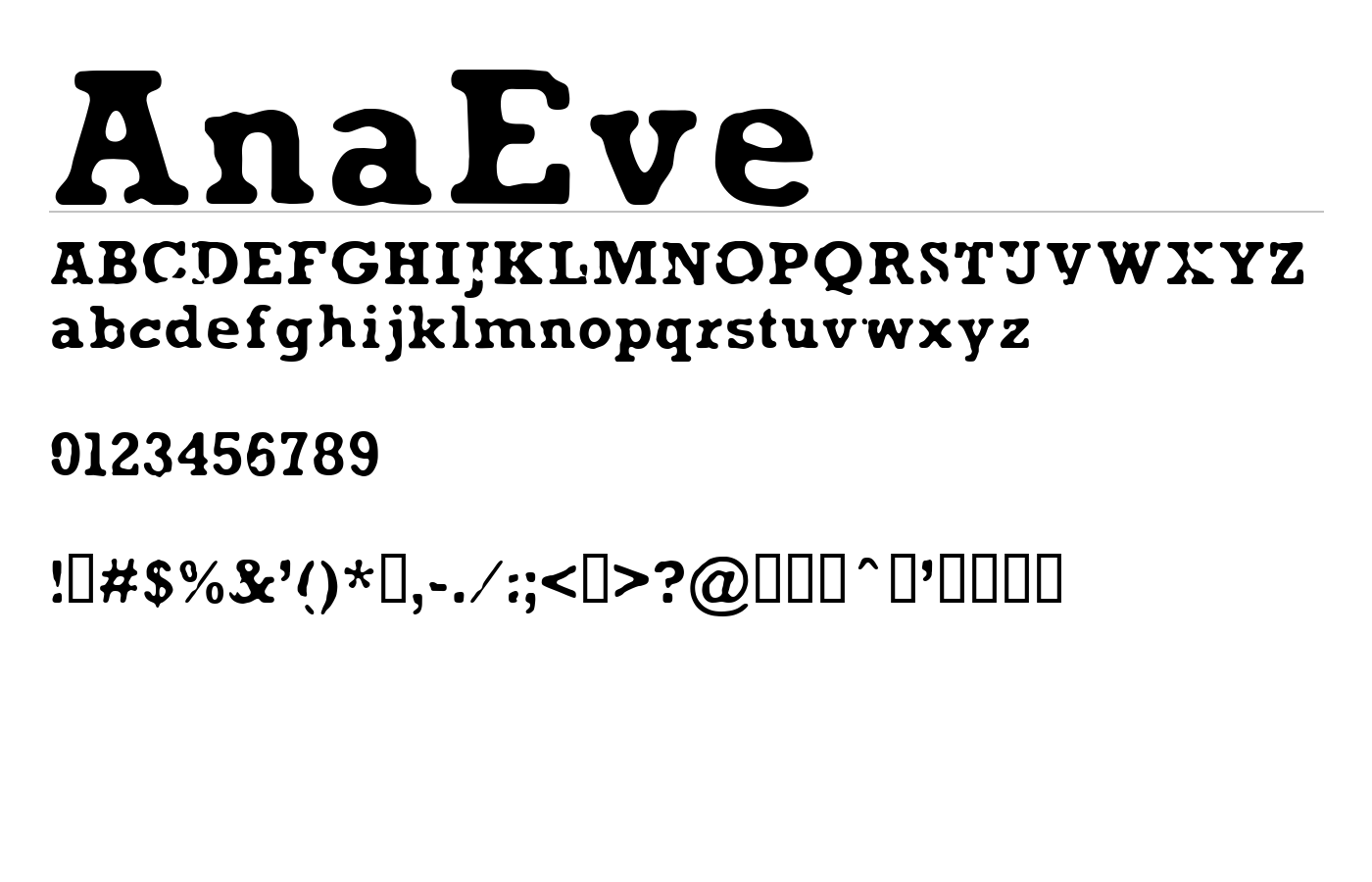
AnaEve is a bold slab serif font with a strong, vintage feel, characterized by its thick, blocky serifs and slightly irregular, hand-crafted texture. Its sturdy letterforms and moderate contrast make it perfect for creating a confident, retro look suitable for logos, posters, and packaging where a distinct, memorable style is desired. This font works best in bold headlines and branding that aim to evoke a sense of timeless strength and personality.
AnaEve Font